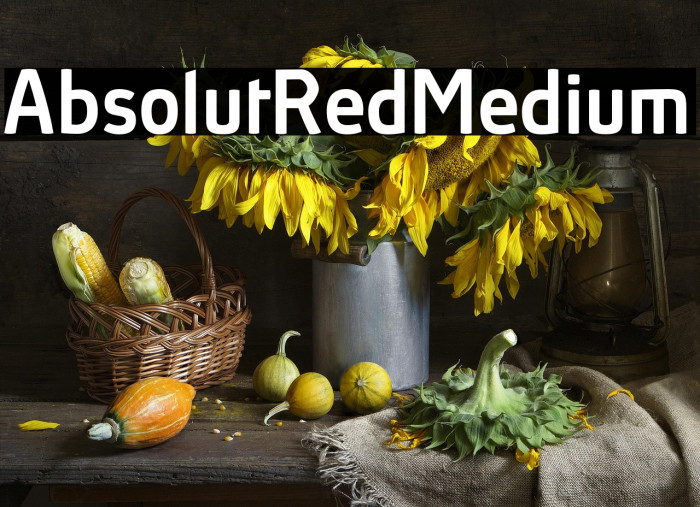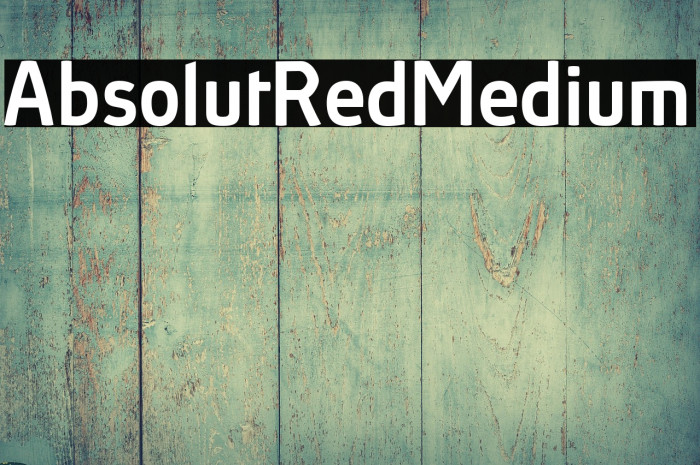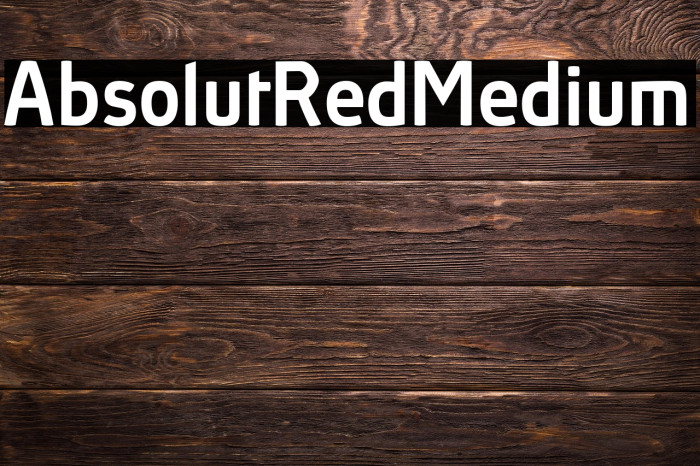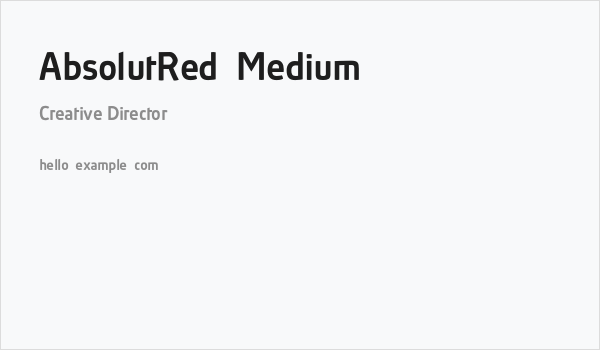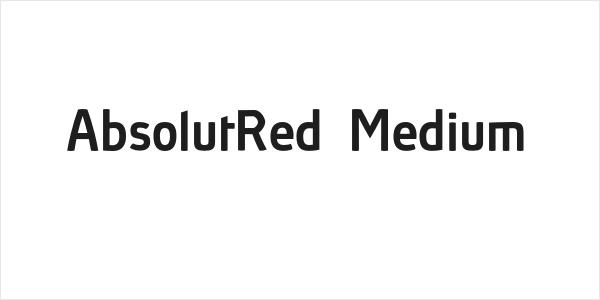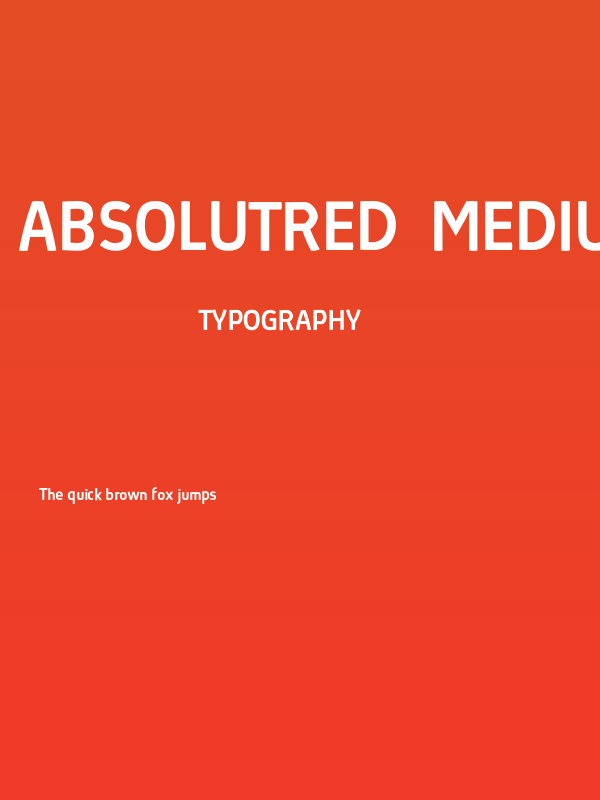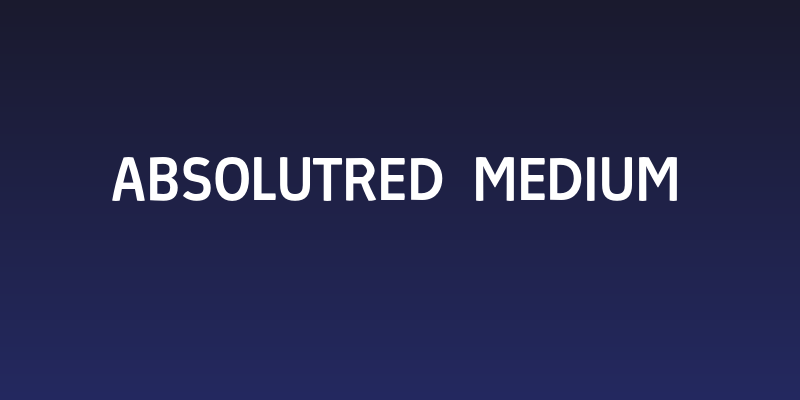
AbsolutRed-Medium Font
AbsolutRed-Medium Description
This font features a clean, modern sans-serif style with a medium weight. The characters are well-defined with a slightly rounded appearance, giving it a friendly yet professional look. The uppercase letters are bold and assertive, while the lowercase letters maintain a consistent flow with subtle curves. The numerals are clear and easy to read, making them suitable for various applications. The special characters are distinct and integrate seamlessly with the rest of the font. Overall, this font balances readability with a contemporary aesthetic, making it versatile for both digital and print media.